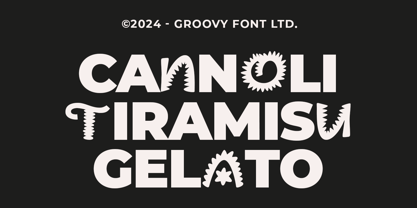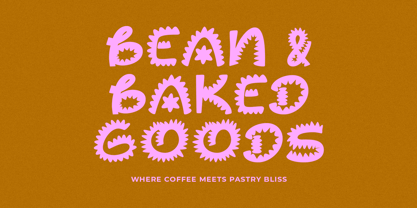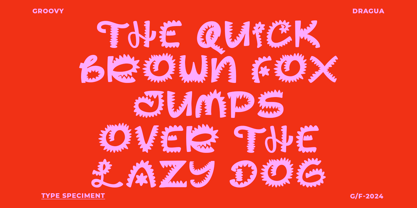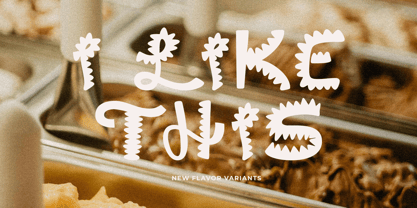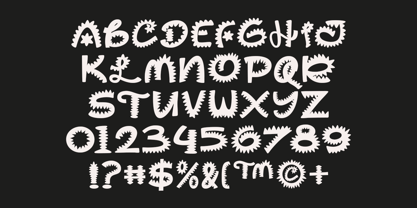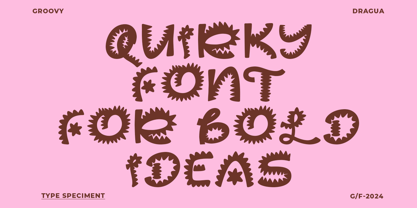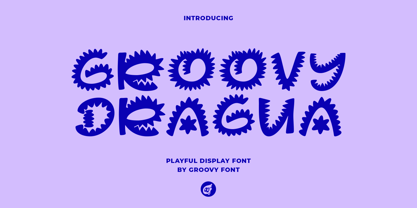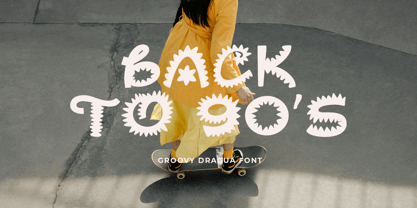
Groovy Dragua
by Groovy Font
The Groovy Dragua Font Family was designed by Ahmad Ginanjar Riyadi and published by Groovy Font. Groovy Dragua contains 1 styles. More about this family
Groovy Dragua font is a playful and handcrafted display font featuring a distinctive serrated, saw-like shape.
This unique design element sets this font apart, adding a touch of creativity and quirkiness to any project. The cheerful and fun vibe of Groovy Dragua makes it an ideal choice for combining with sans-serif fonts or other typefaces to create dynamic and eye-catching designs.
Whether used in posters, packaging, or branding materials, this font injects a sense of energy and character into the overall composition, making it a standout choice for those seeking a playful and unconventional feel.